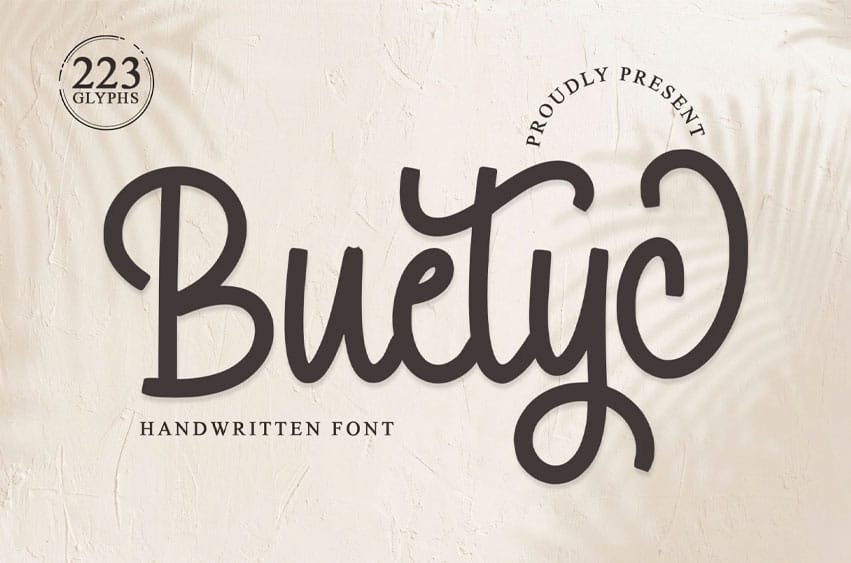
Beutyc Font is a handwritten font. This versatile script font has a unique and broad style. Guaranteed to add the best results to your design project work.
- Support multilingual; ä ö ü Ä Ö Ü ß ¿ ¡
- Ligature & Alternate
- Lowercase and uppercase letters